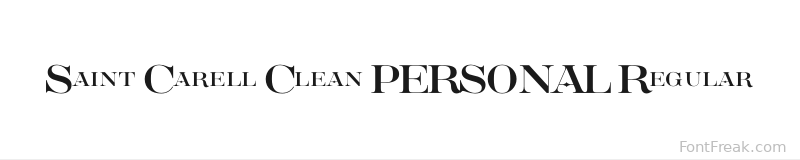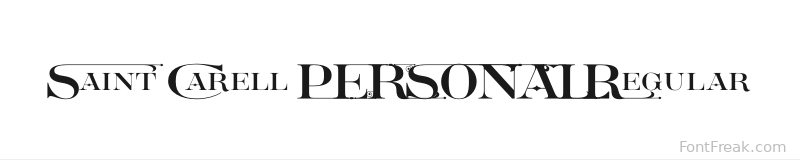
Saint Carell PERSONAL Regular
Saint Carell Clean PERSONAL Regular
About Saint Carell PERSONAL Regular
The Saint Carell PERSONAL Regular font, designed by Mans Greback, is a striking display typeface that blends elegance with a contemporary edge. This serif font is characterized by its clean lines and moderate stroke weight, providing a balanced contrast that enhances readability while maintaining a sophisticated appearance. The thoughtful spacing between characters allows for seamless flow, making it suitable for various design applications.
This font shines in creative projects where a touch of personality is desired. Ideal for wedding invitations, it adds a romantic flair that complements formal events beautifully. Additionally, its unique aesthetic makes it perfect for movie posters, where it can draw attention and convey mood effectively. Restaurant menus can benefit from the font's clarity and charm, helping to highlight dish names and descriptions. Content creators and graphic designers will also find it a valuable tool for branding materials, social media graphics, and promotional content that requires a refined touch.
What truly sets the Saint Carell PERSONAL Regular font apart is its ability to combine elegance and functionality. It not only enhances the aesthetic appeal of any design but also ensures that the text remains legible and engaging. With its unique character and versatility, this font is a must-have for those seeking a distinctive typeface. Don't miss out on the opportunity to elevate your designs with the Saint Carell PERSONAL Regular font free download.